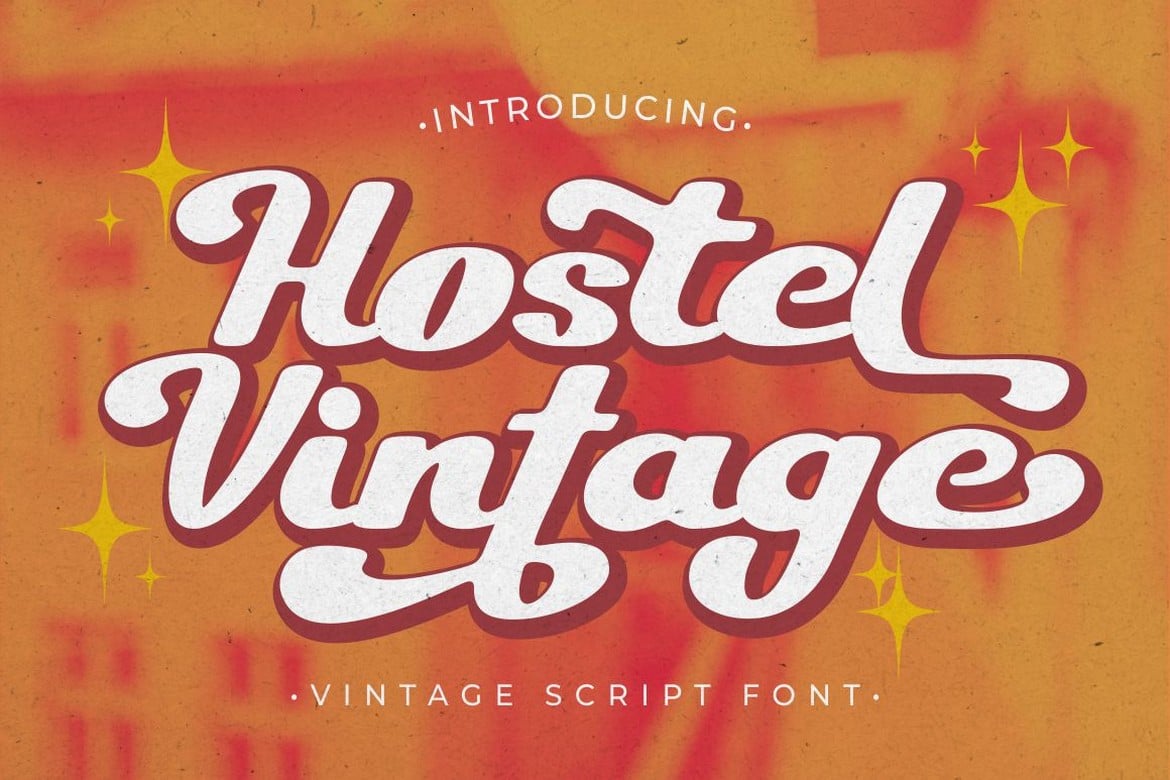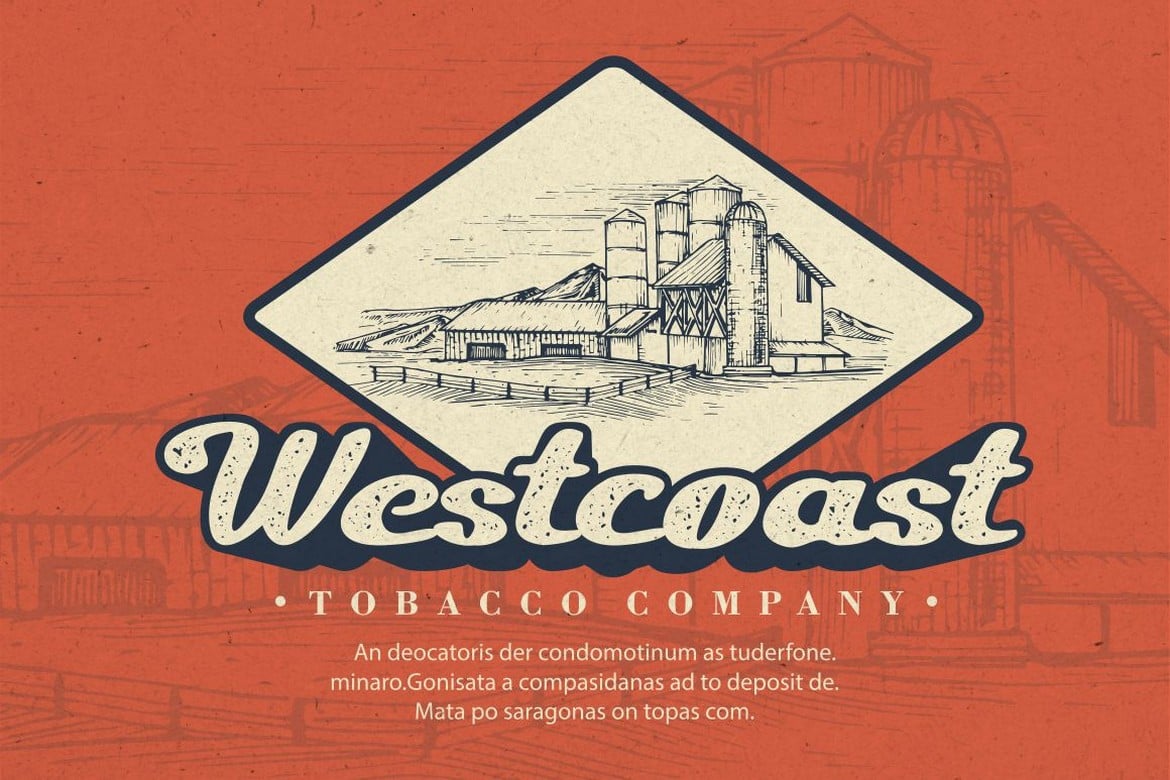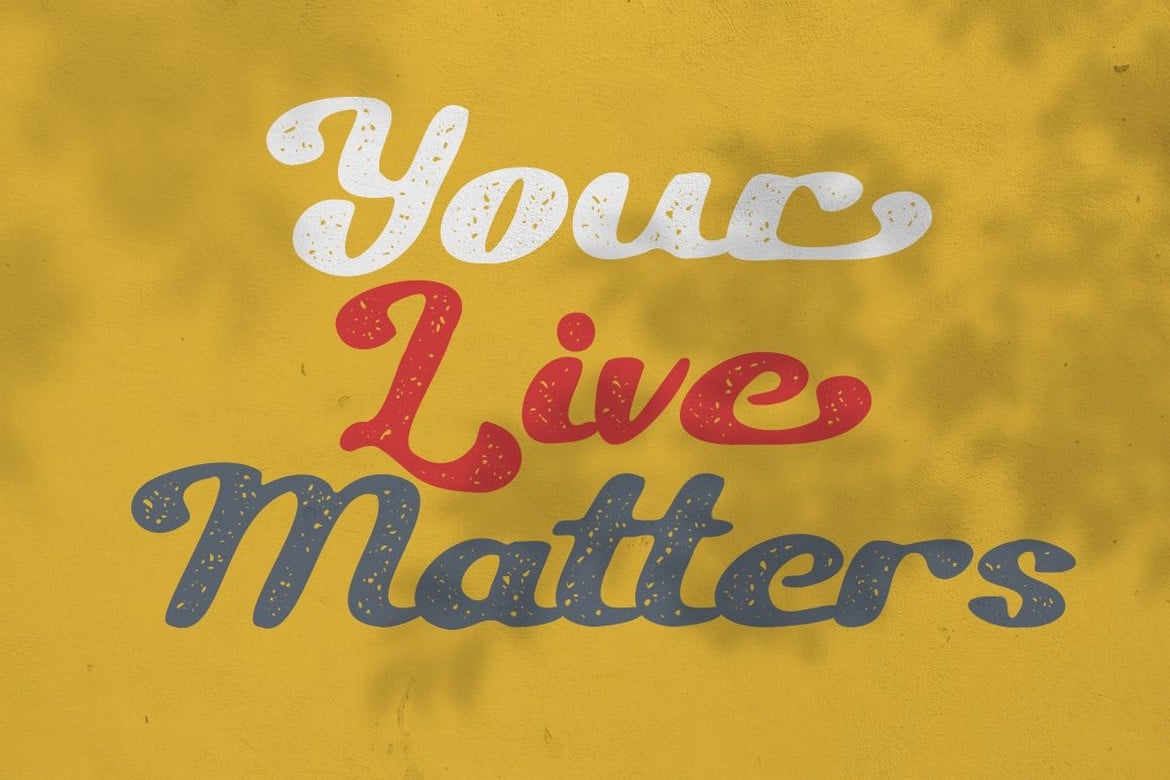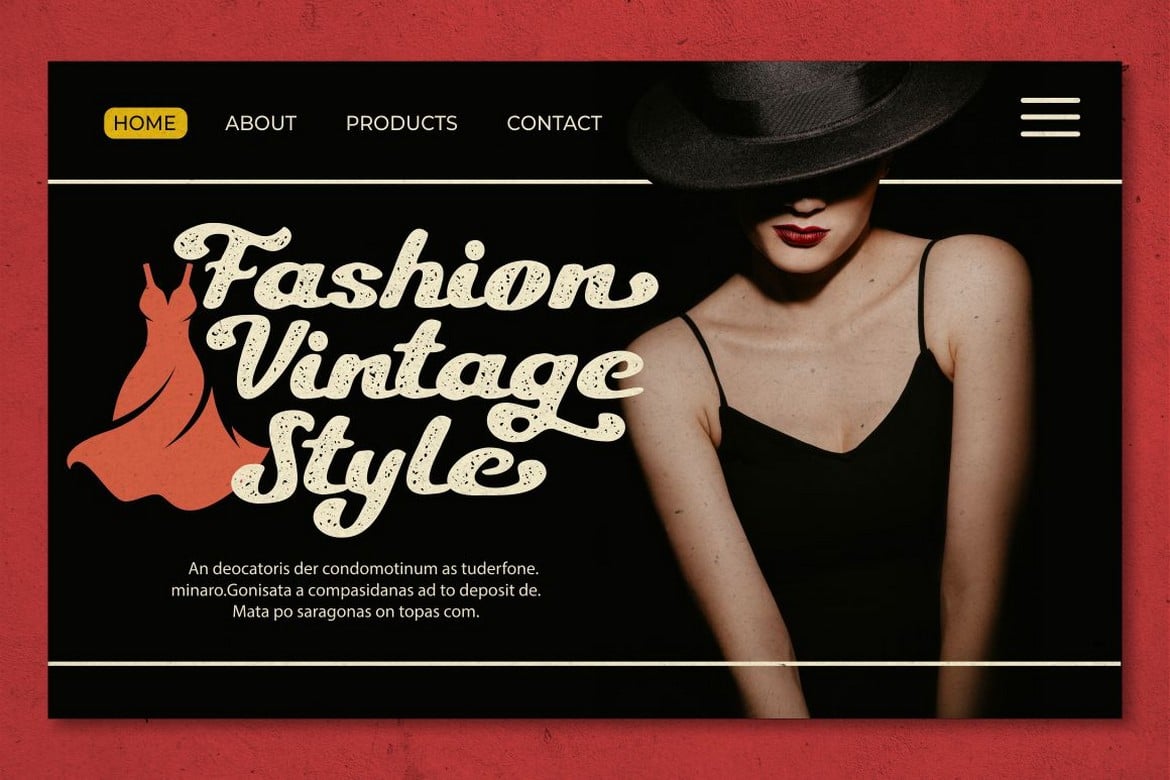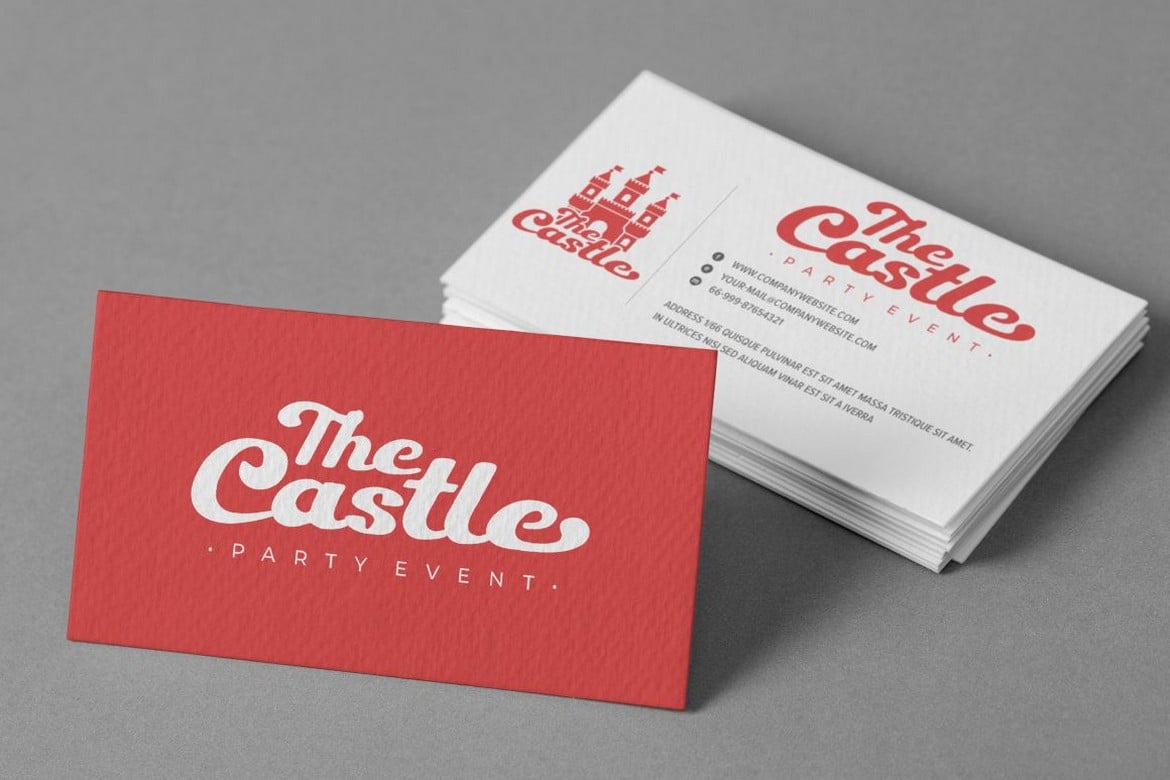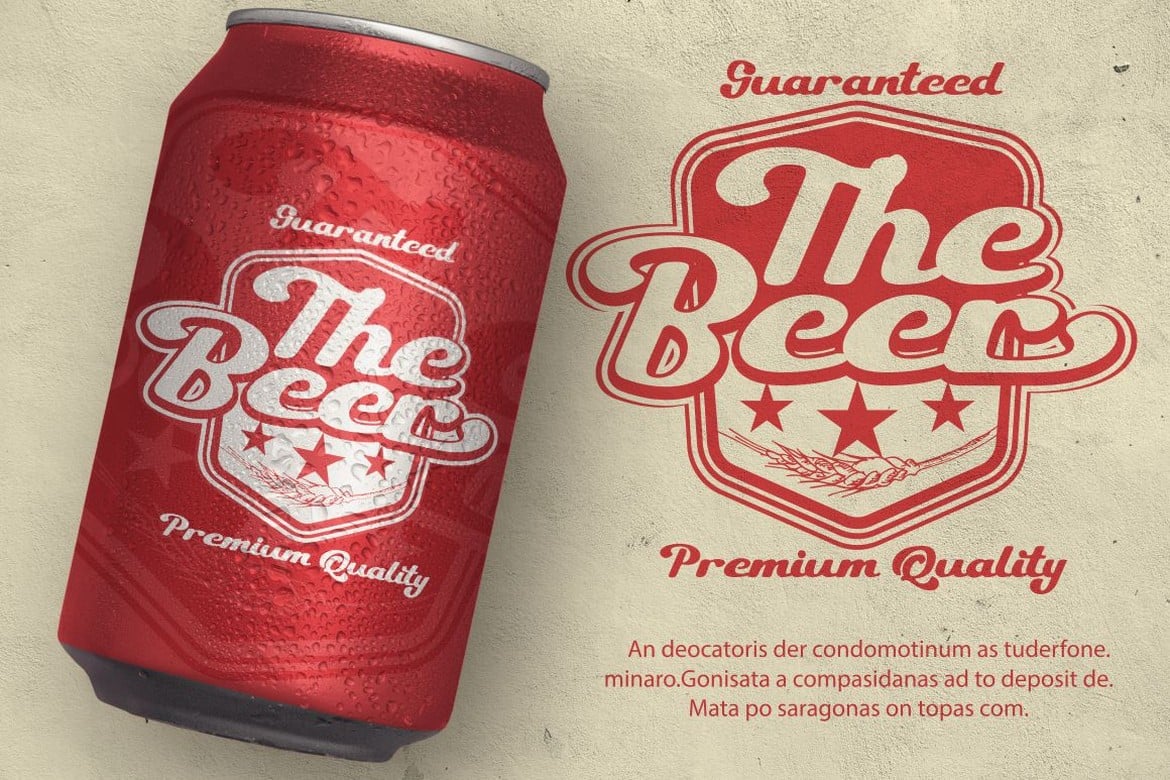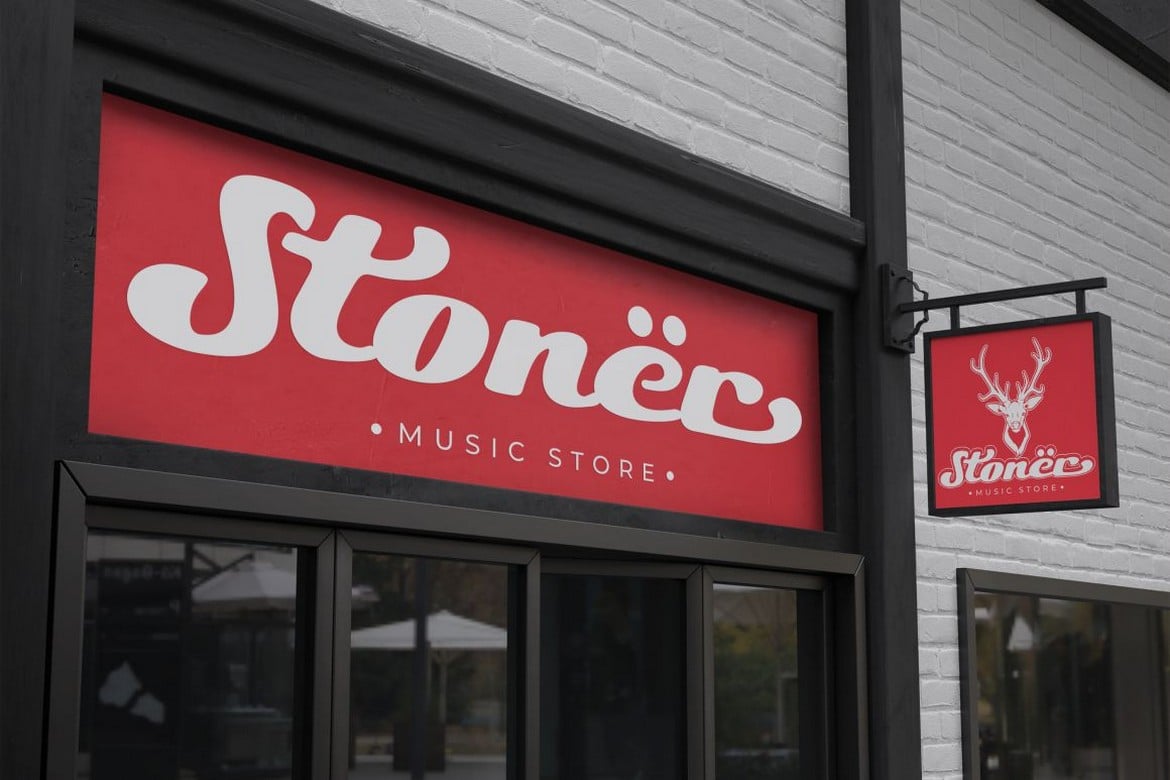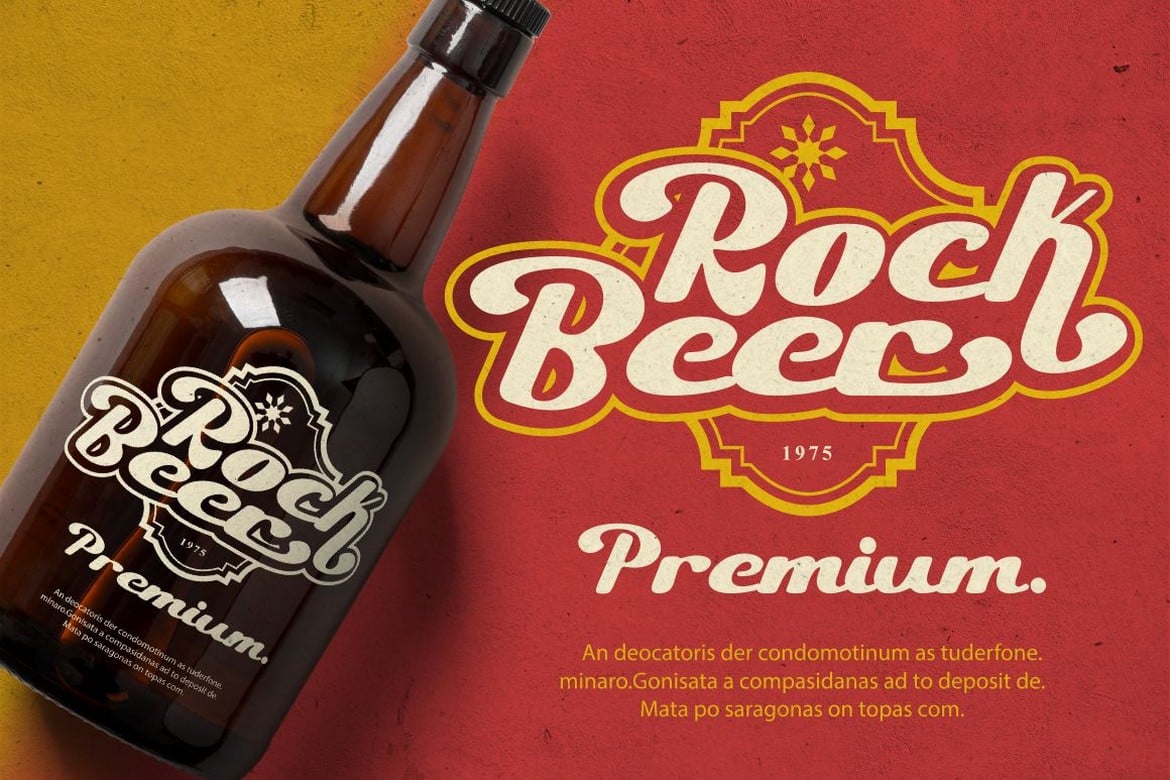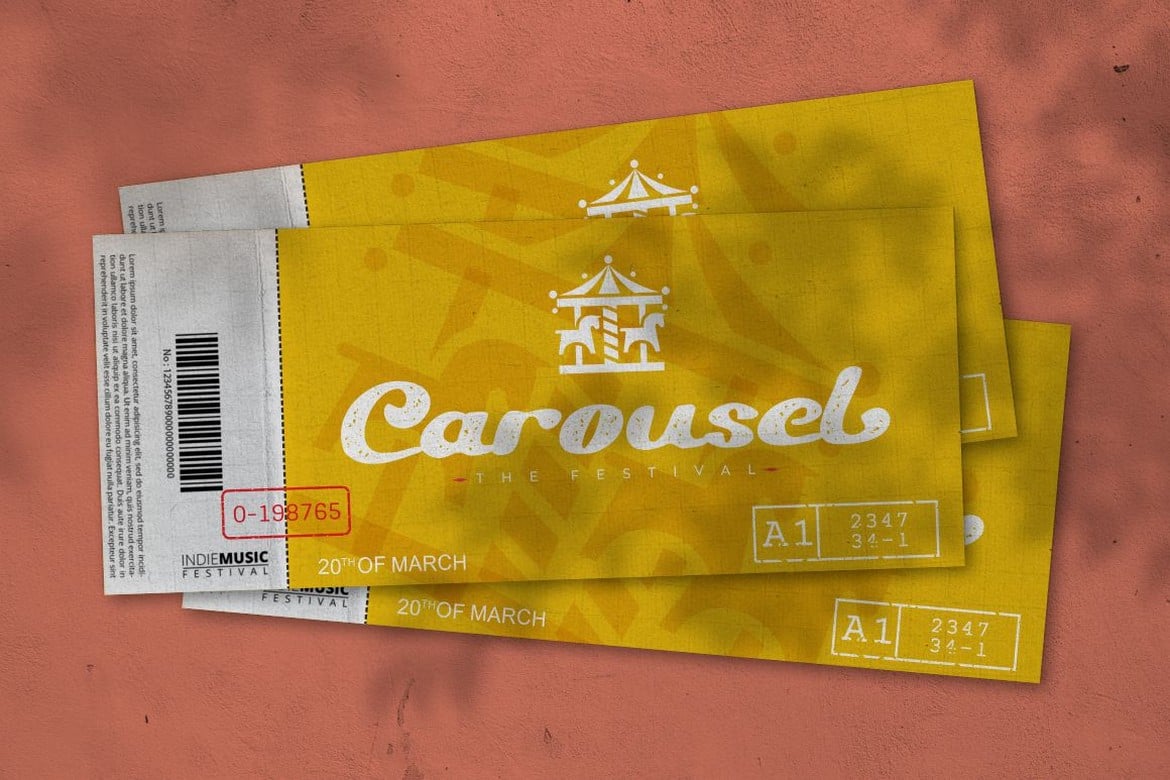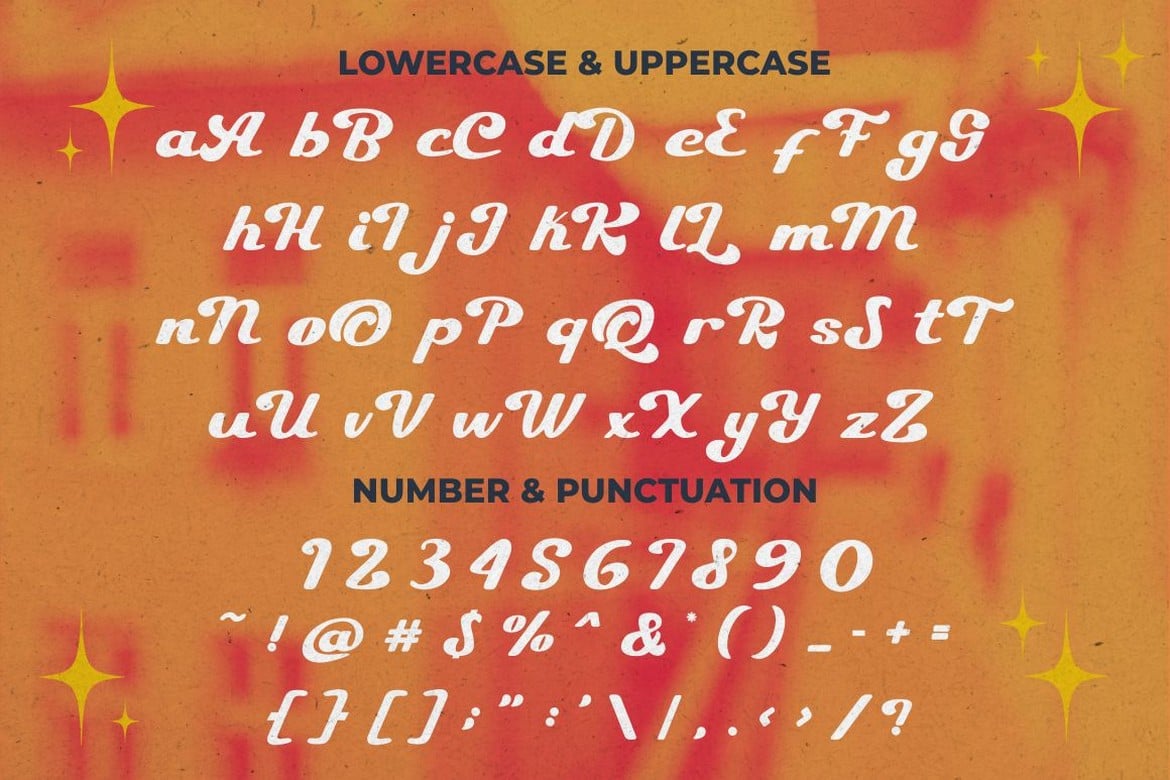
Hostel Vintage – Vintage Script Font
Introducing a new vintage font called “Hostel Vintage“. Inspired from vintage typography and lettering in the 70’s and 80’s combine with bold typography style. With a total of 534 glyphs with 359 alternate, you can make letter combinations for lettering with a lot of options.
Come with open type feature ( a lot of alternates and end swash), its help you to make great lettering.
Hostel Vintage best uses for Logotype, heading, cover, poster, logos, quotes, product packaging, header, merchandise, social media & greeting cards and many more.
This font is also support multi language.